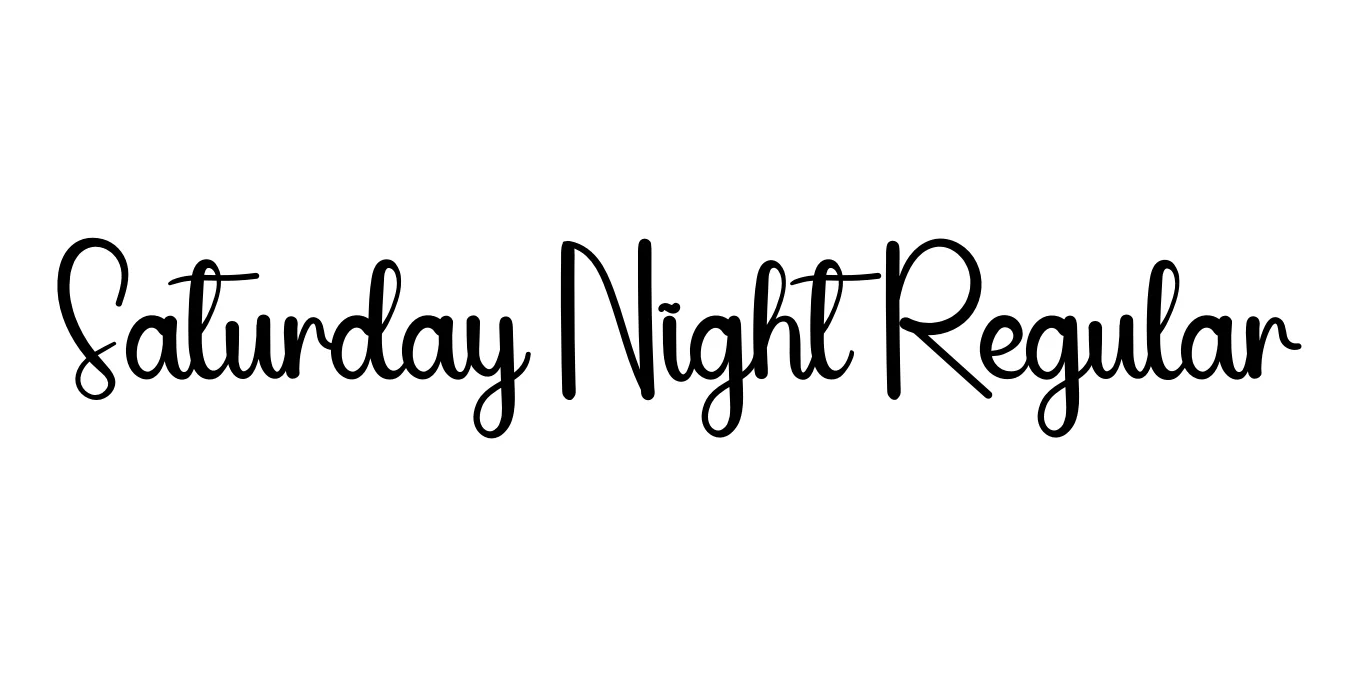
Saturday Night Regular
Designed by Artimasa
| Font Name | Saturday Night |
| Designer | Artimasa |
| Total Character | 179 |
Saturday Night Regular is a vibrant script typeface deeply rooted in the energetic disco culture of the 1970s and 1980s. Its fluid, interconnected strokes capture the essence of neon lights and late-night festivities, making it an ideal choice for projects that require a touch of nostalgia and glamour. The font's rhythmic flow and bold personality allow it to stand out effectively in both digital and print mediums.
Developed with a focus on retro aesthetics, this typeface includes various ligatures and stylistic alternates that provide an authentic hand-drawn feel. Whether you are designing for a high-energy music event, a vintage-style brand, or social media content, Saturday Night Regular offers the versatility needed to create a striking visual impact that resonates with the golden era of nightlife.
Saturday Night Regular Best Uses
Perfect for concert, club night, and themed party promotions.
Ideal for retro-themed brand identities and lifestyle logos.
Great for eye-catching quotes, headlines, and high-energy graphics.
Adds a nostalgic and stylish flair to vintage-inspired consumer products.